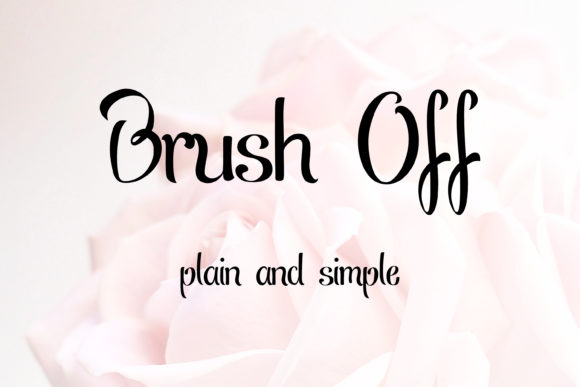
HomeScript FontsBrush off Font Script Fonts Brush off Font FacebookXPinterestWhatsApp About Brush off Font The Brush Off is a no-frills brush style typeface. DOWNLOAD NOW People also explored Bohogi Font Amalyna Font Avies Font Ultimate Victory Font Miyhela Font Khian Shantang Font Note Planner Font Beer Soda Can Mockup Saffron Night Font 293 0 TagsBrush off Font Previous articleBambang FontNext articleMacthinger Font LEAVE A REPLY Cancel reply Comment: Please enter your comment! Name:* Please enter your name here Email:* You have entered an incorrect email address! Please enter your email address here Website: Save my name, email, and website in this browser for the next time I comment. Personal Use Free Avatarock Personal Use Free Read more about this font Relic Island 2 Personal Use Free Read more about this font The Fourth Avenue Personal Use Free Read more about this font Potato Pancakes Personal Use Free Read more about this font BLOG Elegant Wedding Invitation Fonts – Handwritten & Script Fonts Elegant Wedding Invitation Fonts Your wedding day is one of the most important moments of your life, and every detail matters—including your invitation design. Our... Top 10 Handwritten Fonts That Elevate Your Designs Best Fonts for T-Shirt Design – Top 2025 Picks Top 7 Google Fonts Alternatives for Faster and Privacy-Friendly Web Design (2025)